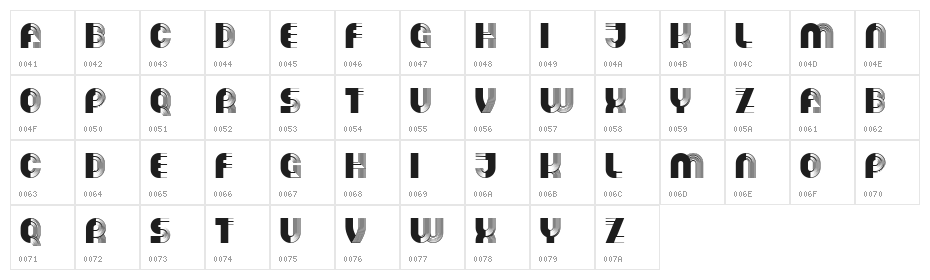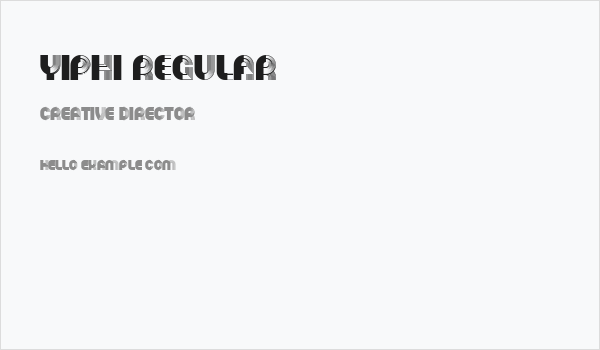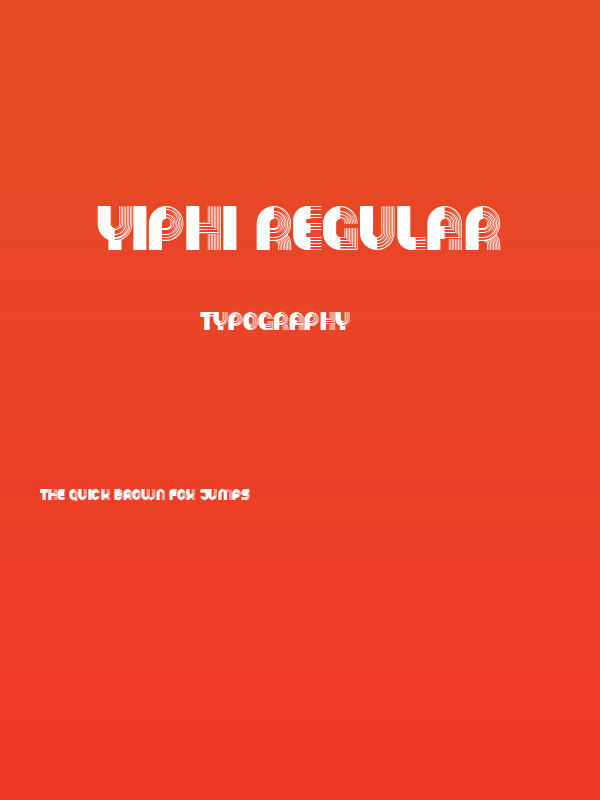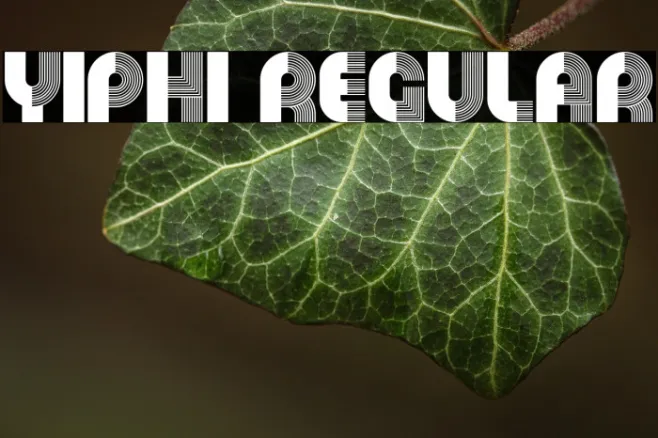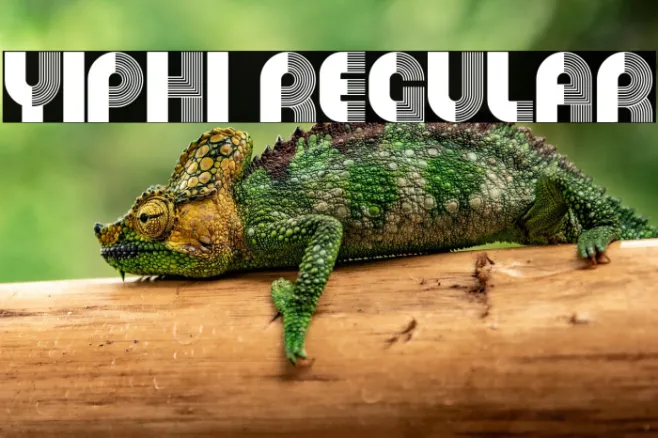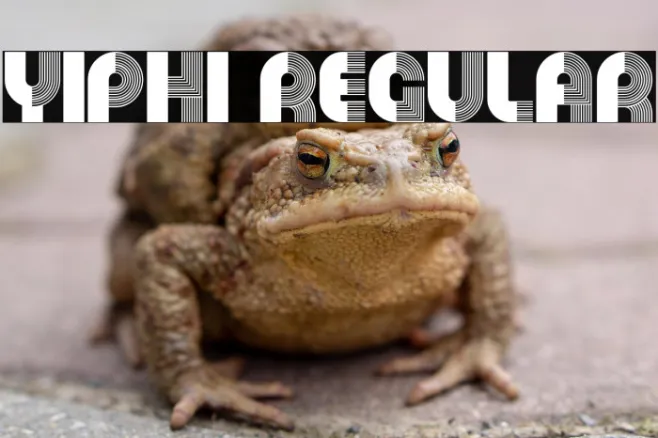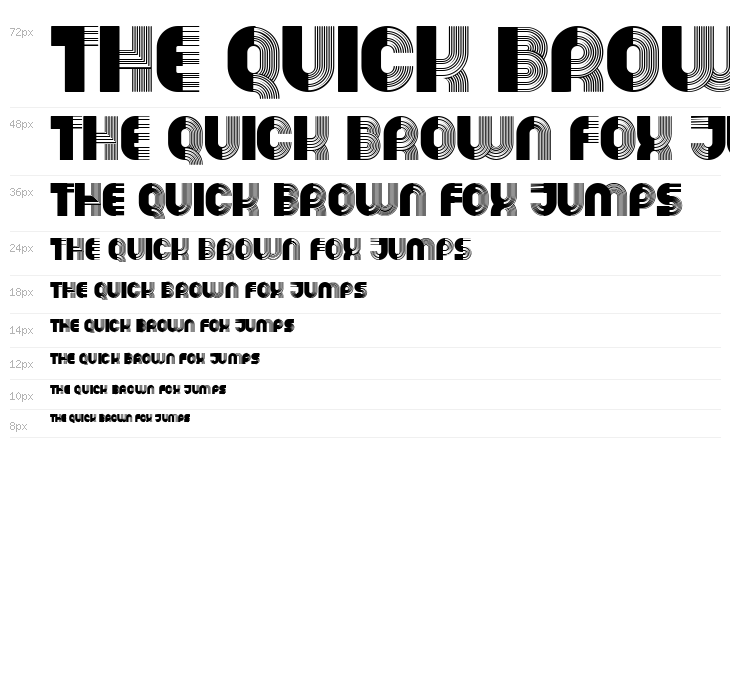
Yiphi Regular Font
Yiphi Regular Description
This font features a bold and striking design with a unique striped pattern within each character. The letters are uppercase and exhibit a geometric and modern aesthetic, characterized by thick, parallel lines that create a sense of depth and movement. The style is consistent across all characters, providing a cohesive look that is both eye-catching and dynamic. The font's boldness and intricate detailing make it suitable for projects that require a strong visual impact.
| Proposed Projects | Ideal for branding, poster design, and any project needing a modern, impactful typeface. |